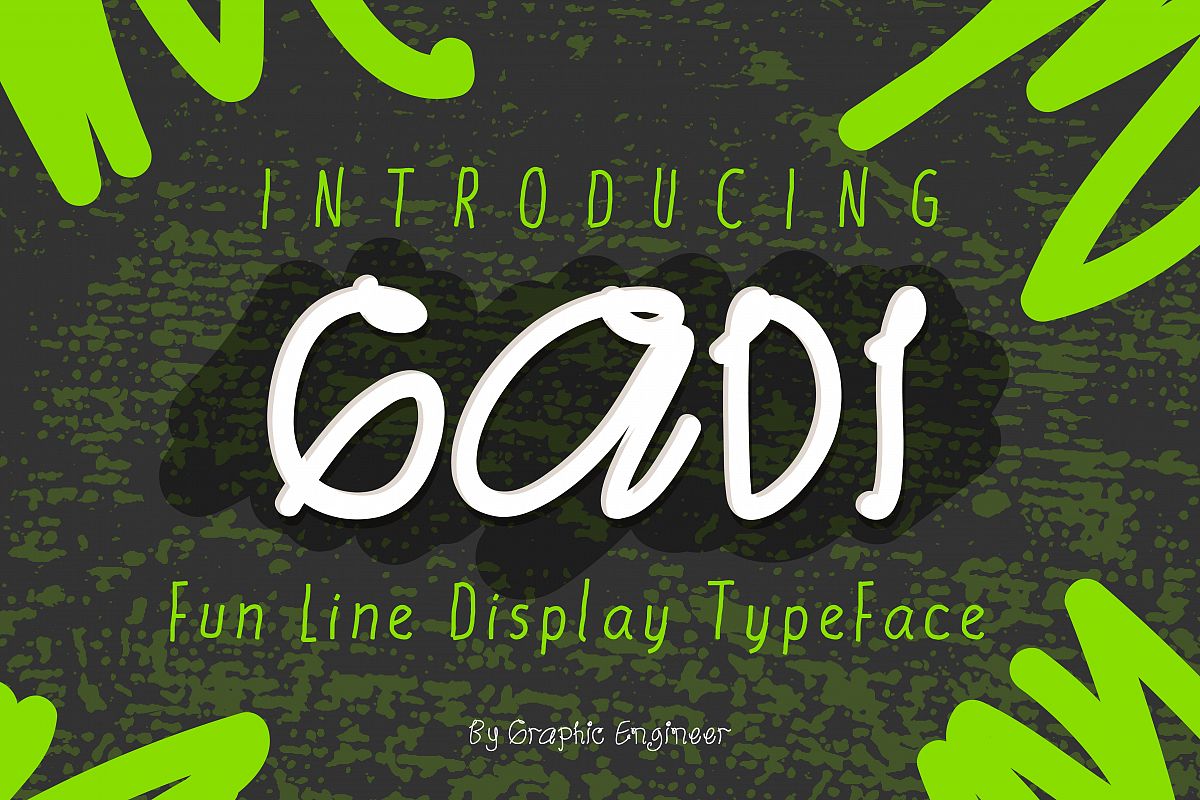
Gadi
Gadi Typeface: Fun Line Display Typeface  handwritten font, fun and Charmy with a perfect for Branding, Logos, Advertisment, Wallpaper, Cover, Banner, Sales Product, Promotion, Greeting Cards, Wedding Stationery, Quotes etc.Font features include uppercase, lowercase (small caps), numerals, punctuationsFiles included: